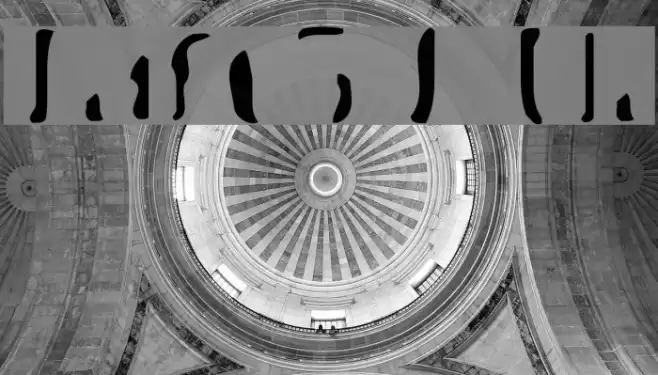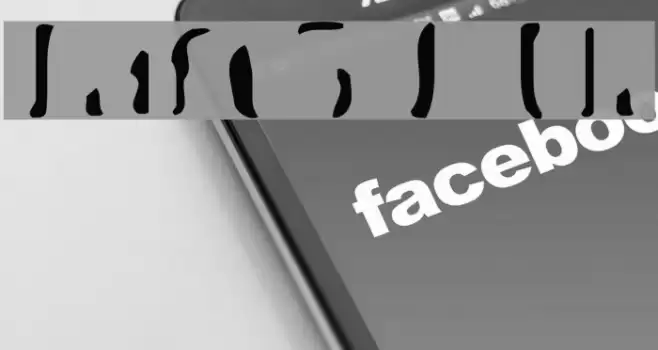
Transfer51 Ultra Font
Transfer51 Ultra Description
This font features a unique and artistic design with a highly stylized appearance. The characters are bold and have a distinct, abstract quality, with irregular shapes and varying stroke widths. The uppercase and lowercase letters maintain a consistent style, while the numbers and special characters complement the overall design. The font's playful and unconventional look makes it stand out, offering a creative and modern aesthetic.
A bold, artistic font with abstract, irregular shapes and varying stroke widths from Uncategorized fonts.
- Proposed Projects: Ideal for creative projects such as posters, album covers, and branding materials that require a distinctive and modern look.
- Use Case: Logos, Posters, Album Covers